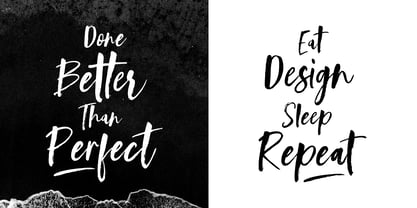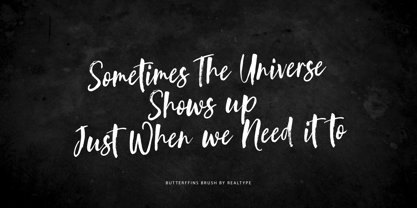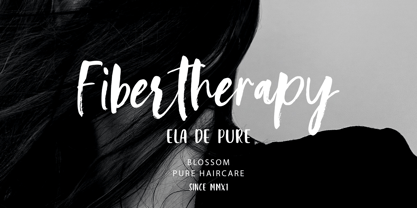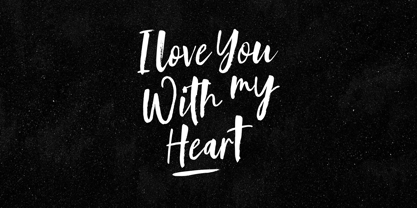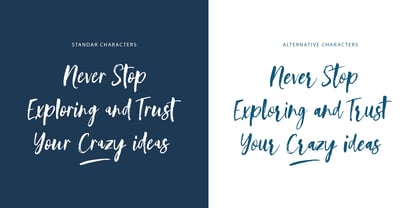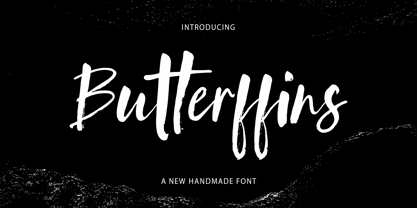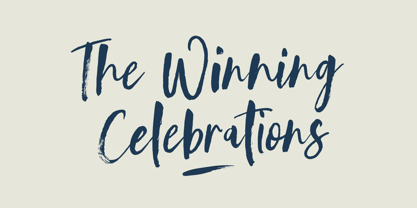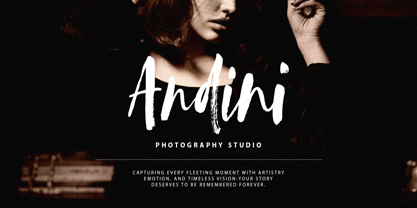
Butterffins
by Realtype
The Butterffins Font Family was designed by Alam Syahril and published by Realtype. Butterffins contains 1 styles. More about this family
Butterffins textured, natural and handcrafted brush font with an underline swash.
Butterffins is a handmade typeface written with a real brush. Written with quick movements using a brush pen. It's a Handwritten with quick dry strokes letters. Suitable for those who need a font with a real textures.
Butterffins Brush Font is suitable for any modern design such as for cards, invitations, announcements, seasonal designs, social media promotions, web design, branding and logo styling and more.